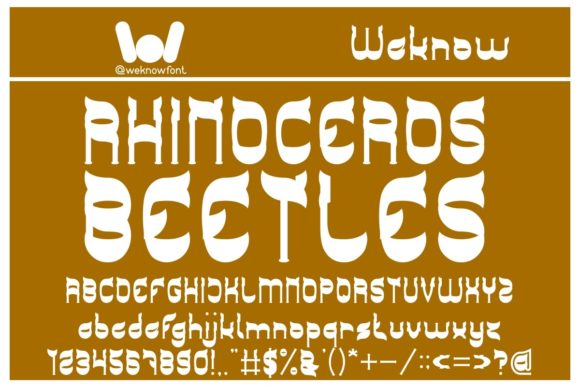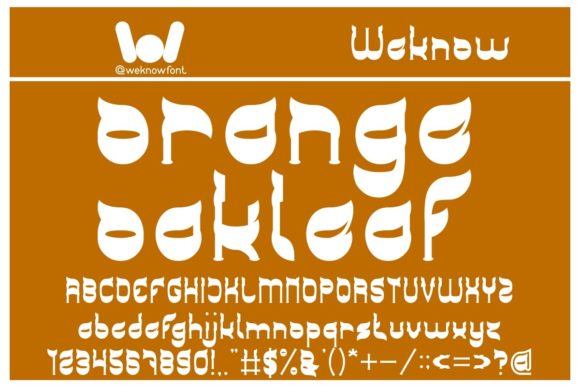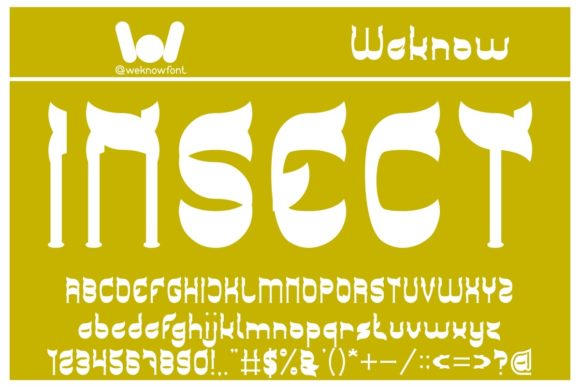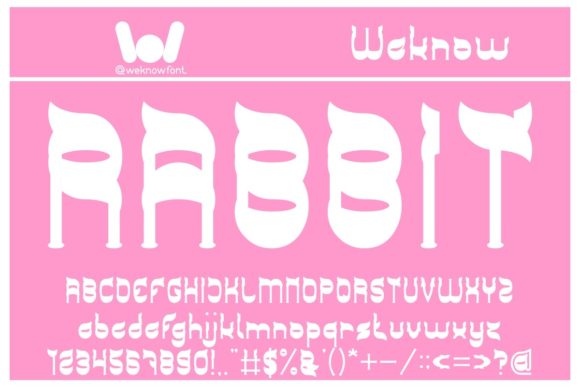
Introducing Green Tea Font: The Perfect Addition to Your Design Projects
Are you a designer or crafter looking for a unique and stylish font to elevate your creative projects? Look no further than Green Tea Font, a fancy display font that is sure to impress. With its elegant and sophisticated design, Green Tea Font is perfect for a wide range of applications, from logos and branding to headlines, posters, and more.
What is Green Tea Font?
Green Tea Font is a carefully crafted display font that is designed to make a statement. Its elegant lines and curves give it a sophisticated and luxurious feel, making it perfect for high-end branding and design projects. The font is highly versatile and can be used in a variety of contexts, from corporate identity and brand identity to apparel, posters, music, movies, games, magazines, books, comics, cartoons, and more.
Key Features of Green Tea Font
- Unique and stylish design: Green Tea Font features a unique and stylish design that is sure to grab attention.
- Highly versatile: The font is highly versatile and can be used in a wide range of applications.
- Elegant and sophisticated: Green Tea Font has an elegant and sophisticated feel that makes it perfect for high-end branding and design projects.
- Easy to read: Despite its ornate design, Green Tea Font is easy to read and understand.
Use Cases for Green Tea Font
Green Tea Font is perfect for a wide range of design projects, including:
- Logo design: Use Green Tea Font to create a unique and memorable logo for your brand.
- Branding and identity: Green Tea Font is perfect for creating a cohesive brand identity, including business cards, letterheads, and more.
- Apparel design: Use Green Tea Font to create stylish and eye-catching apparel, including t-shirts, hoodies, and more.
- Poster design: Green Tea Font is perfect for creating eye-catching posters for events, promotions, and more.
- Digital design: Use Green Tea Font in your digital design projects, including websites, social media graphics, and more.
Why Choose Green Tea Font?
There are many fonts to choose from, but Green Tea Font stands out from the rest. Here are just a few reasons why:
- Unique design: Green Tea Font features a unique and stylish design that is sure to grab attention.
- High-quality: The font is high-quality and carefully crafted to ensure that it looks great in any context.
- Easy to use: Green Tea Font is easy to use and can be easily integrated into your design projects.
Tips for Using Green Tea Font
Here are a few tips for using Green Tea Font in your design projects:
- Use it sparingly: Green Tea Font is a bold and eye-catching font, so use it sparingly to avoid overwhelming your design.
- Pair it with a simple font: Pair Green Tea Font with a simple font to create contrast and make your design more readable.
- Experiment with different colors: Green Tea Font looks great in a variety of colors, so experiment with different colors to find the one that works best for your design.
Green Tea Font is a unique and stylish display font that is perfect for a wide range of design projects. With its elegant and sophisticated design, Green Tea Font is sure to impress. Whether you’re a designer or crafter, Green Tea Font is a great addition to your font collection.